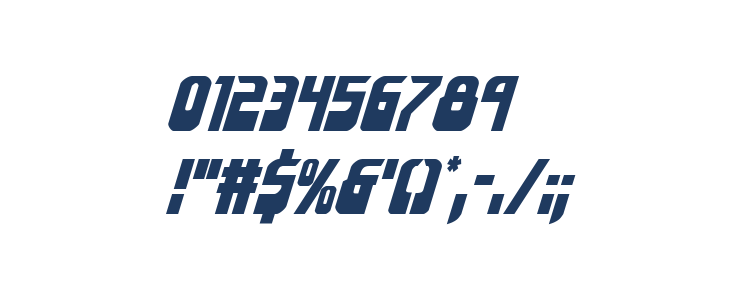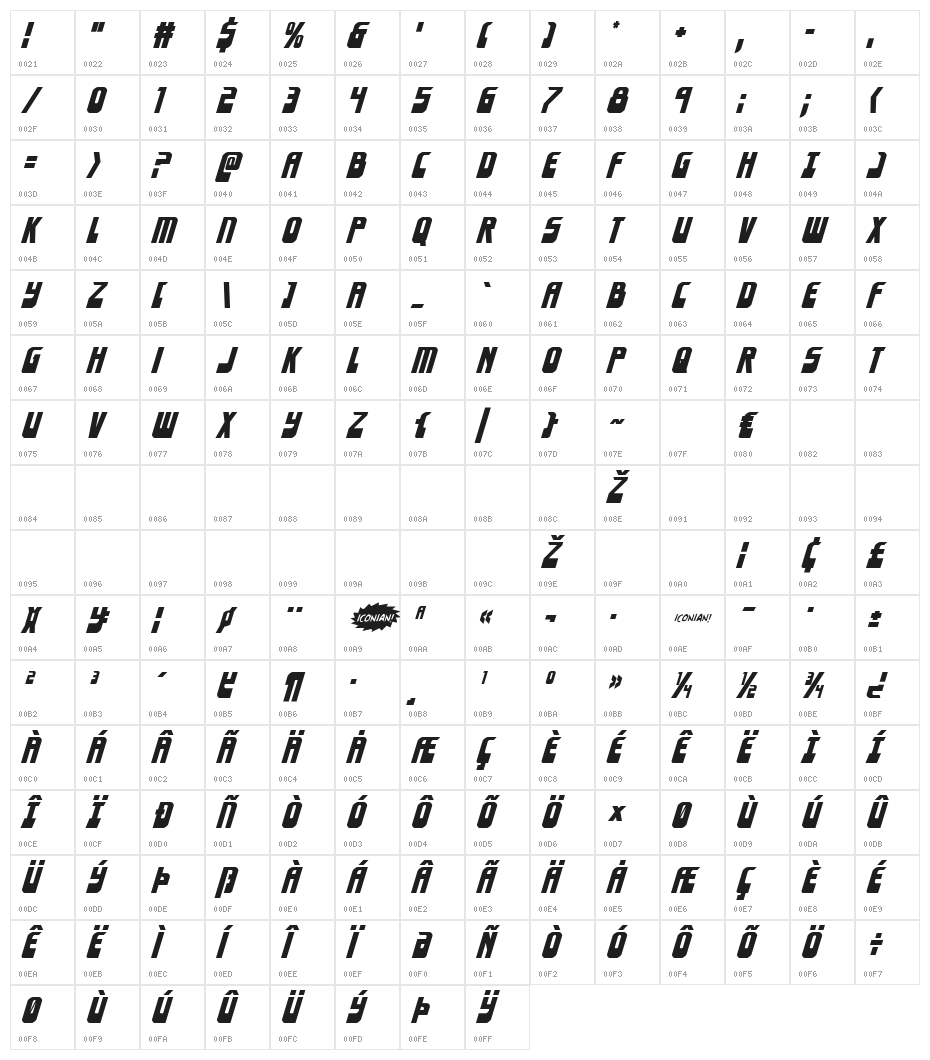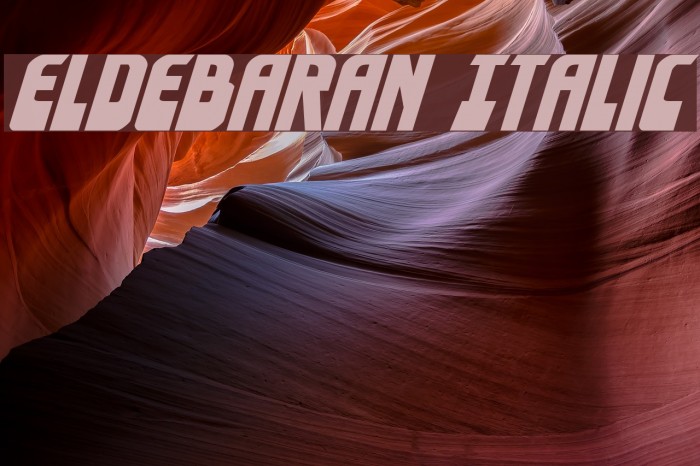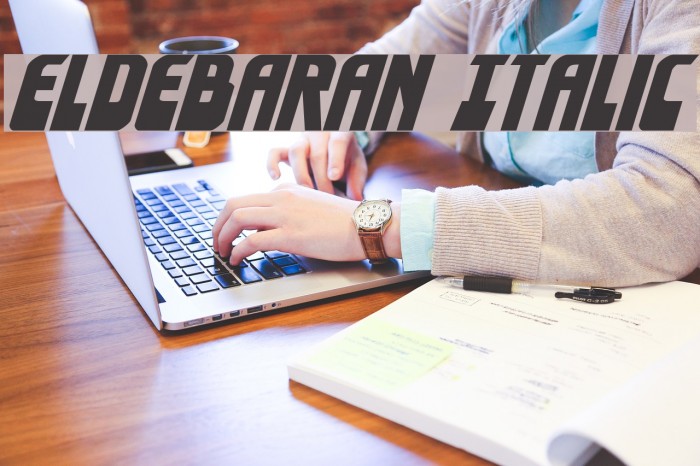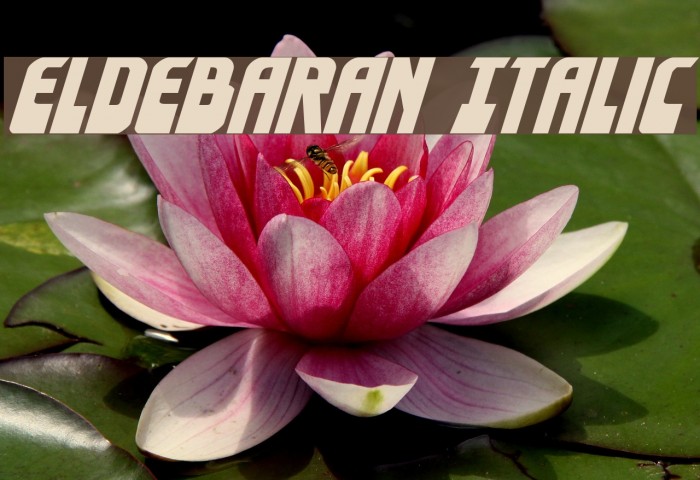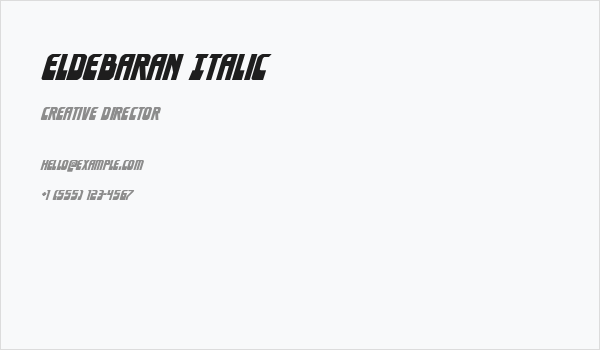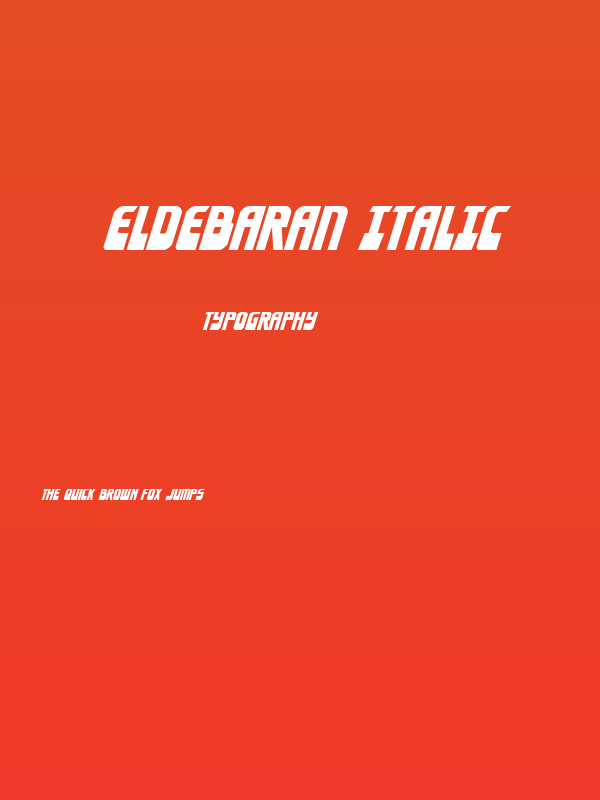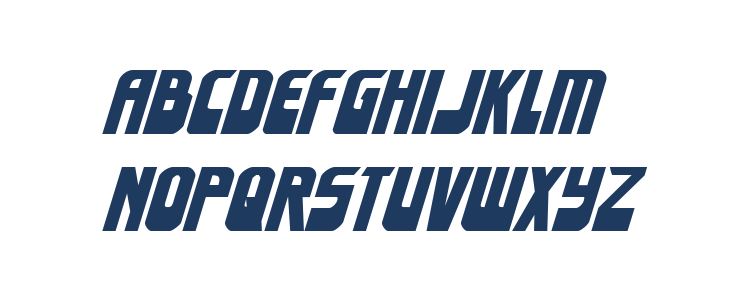
Eldebaran Italic Font
Eldebaran Italic Description
This font features a bold, italicized style with a futuristic and dynamic appearance. The characters are sharply angled, giving a sense of motion and speed. The uppercase and lowercase letters maintain a consistent slant, enhancing the italic effect. The numbers and special characters follow the same design principles, ensuring uniformity across the font. The strokes are thick, providing a strong visual impact, while the spacing between characters is tight, contributing to its compact and cohesive look. This font is ideal for projects that require a modern and energetic feel.
Proposed ProjectsIdeal for sports branding, tech logos, video game titles, and dynamic posters.